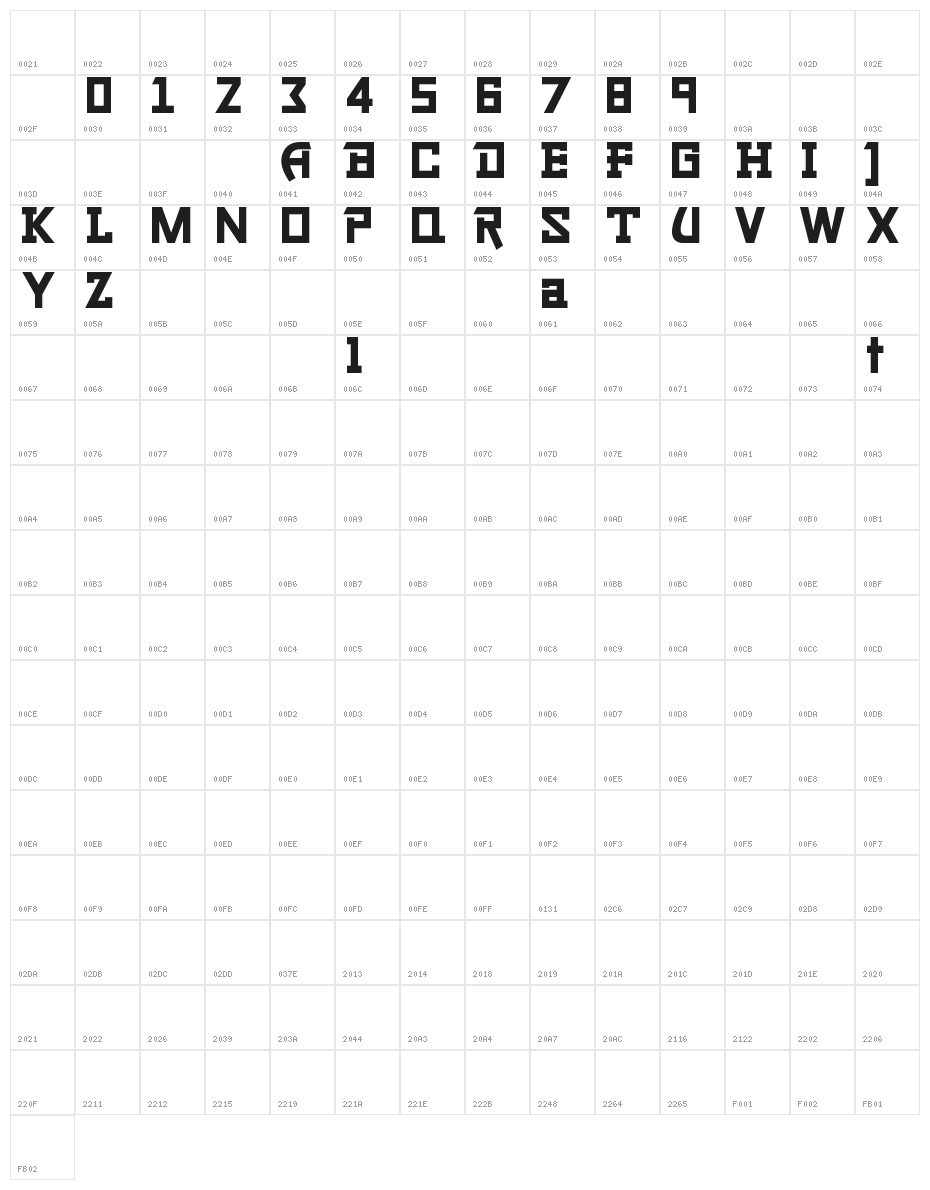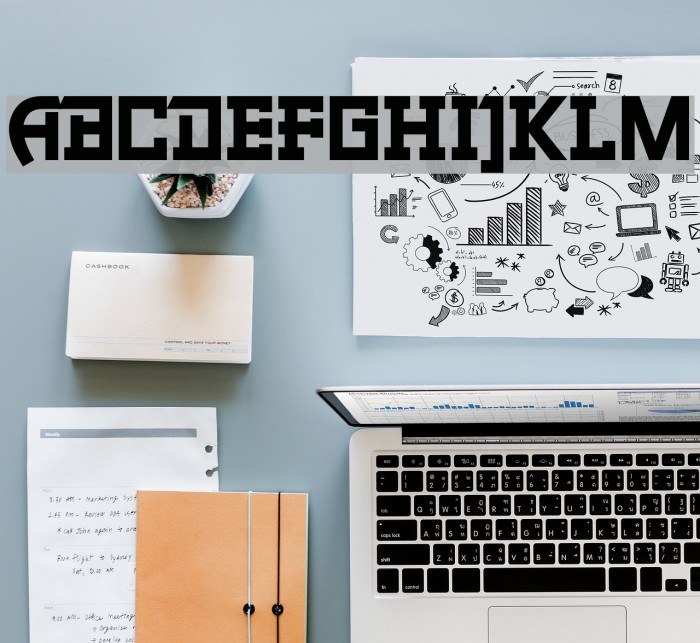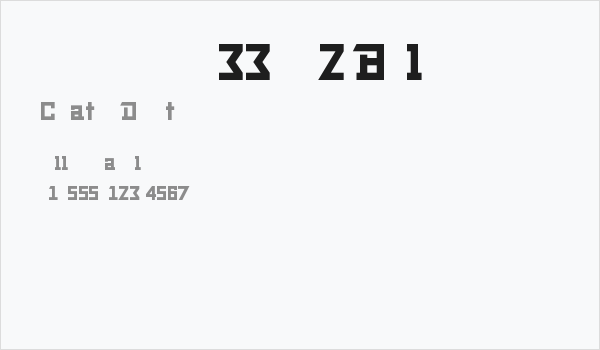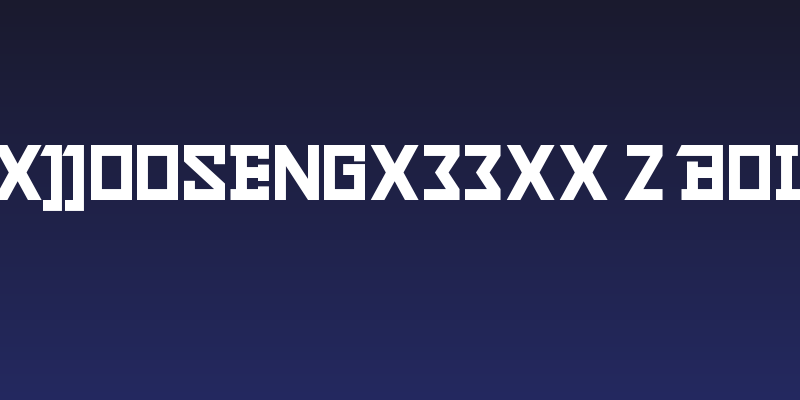
xxjjoosengx33xx 2 Bold Font
xxjjoosengx33xx 2 Bold Description
This font features a bold and striking design with a distinctly modern and geometric style. The uppercase letters are characterized by sharp angles and a blocky appearance, giving them a strong and commanding presence. The lowercase letters maintain the boldness but with a slightly more compact form. Numbers are equally bold and consistent with the overall geometric theme. The font includes unique special characters that complement its bold style. This typeface is ideal for projects that require a strong visual impact.
| Proposed Projects | Ideal for branding, posters, headlines, and any design requiring a strong visual impact. |